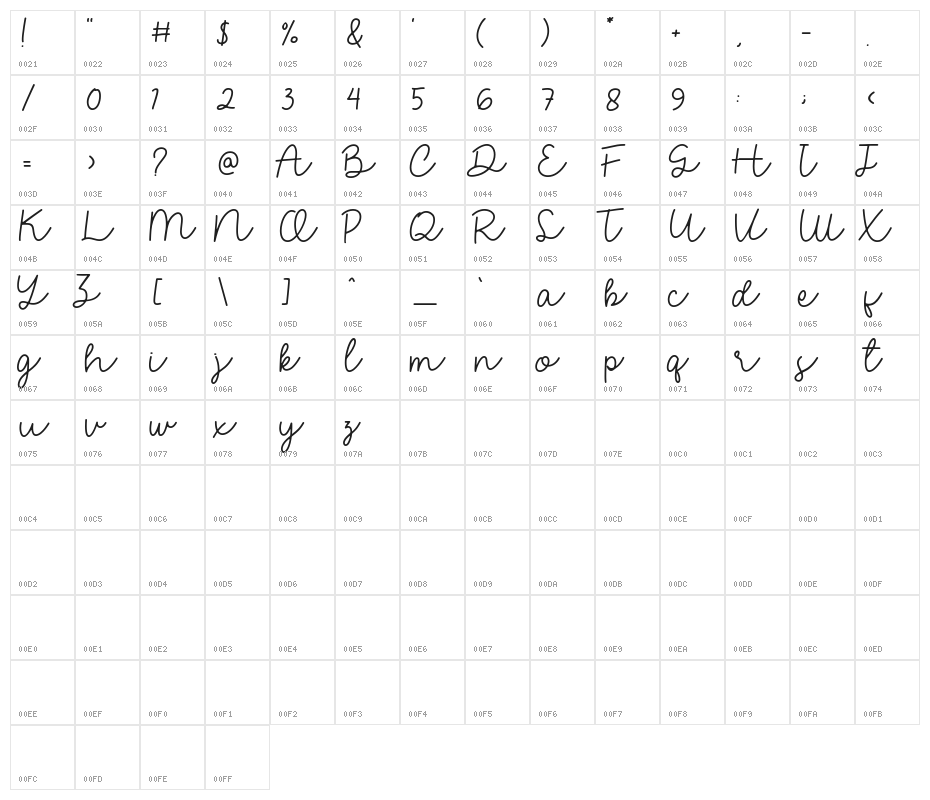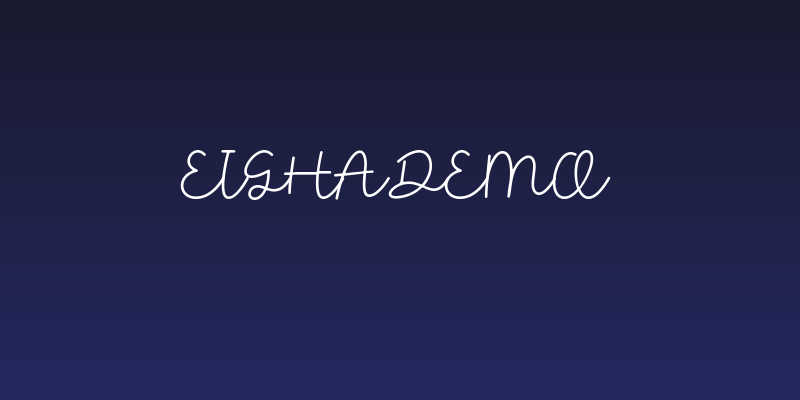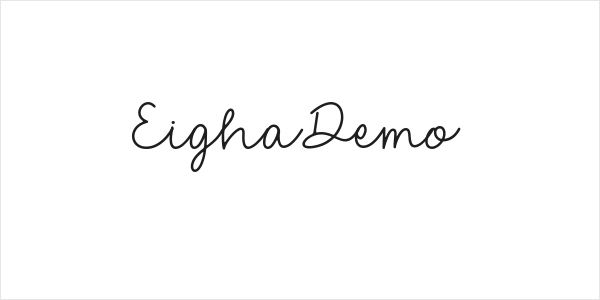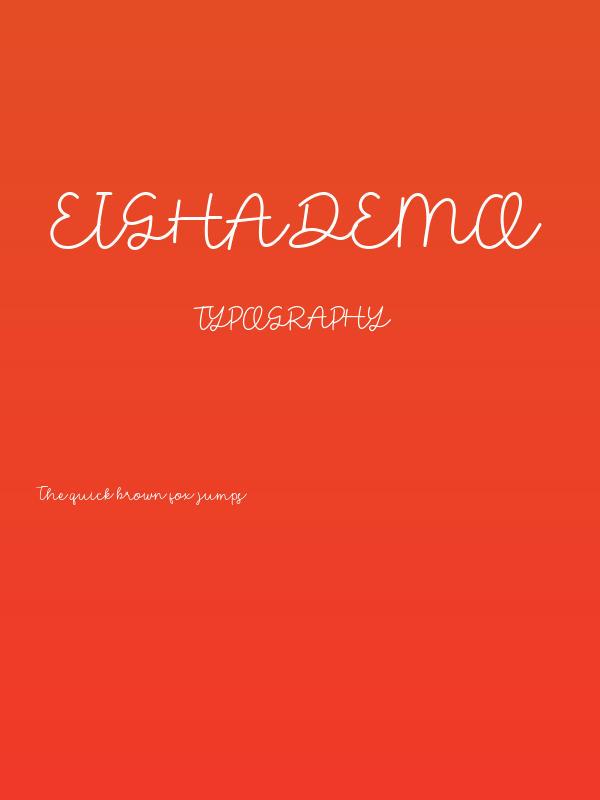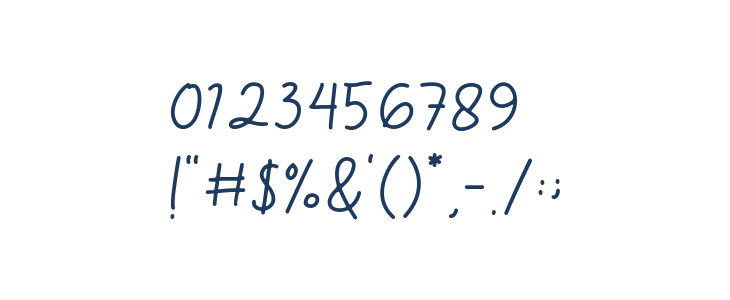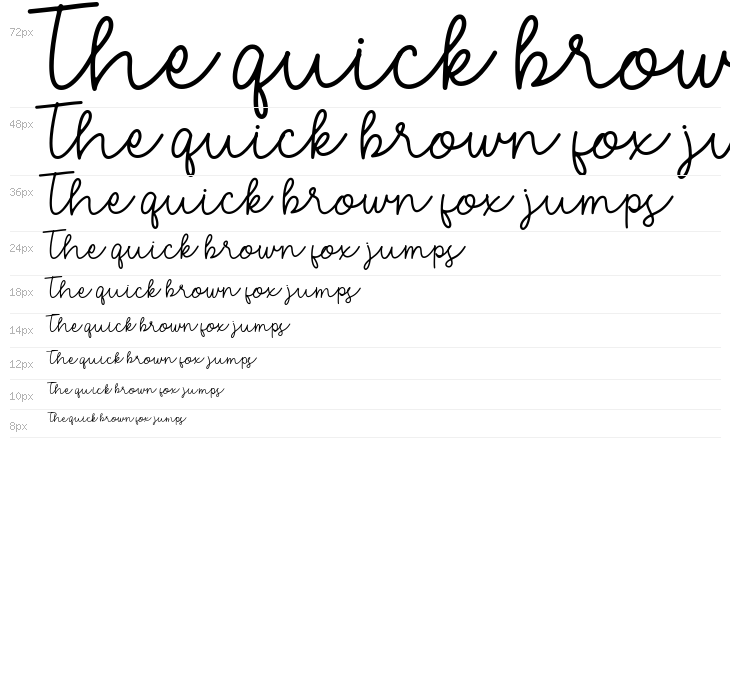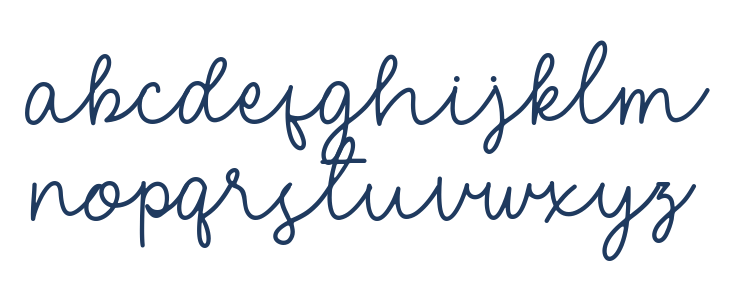
Eigha Demo Font
Eigha Demo Description
This font features a flowing, cursive style that mimics natural handwriting with a smooth and elegant appearance. The letters are connected, creating a seamless and continuous script that is both stylish and readable. The uppercase letters maintain a consistent height, while the lowercase letters have a slight slant, adding to the handwritten feel. The numbers and special characters are designed to match the overall script style, ensuring a cohesive look across all elements. This font is ideal for projects that require a personal touch, such as invitations, greeting cards, and branding materials. Its fluid strokes and balanced proportions make it versatile for various design needs.
| Overall Style | Handwritten |
| Use Case | Logos, Headlines, Personal projects |
| Proposed Projects | Ideal for invitations, greeting cards, branding, and personal projects. |